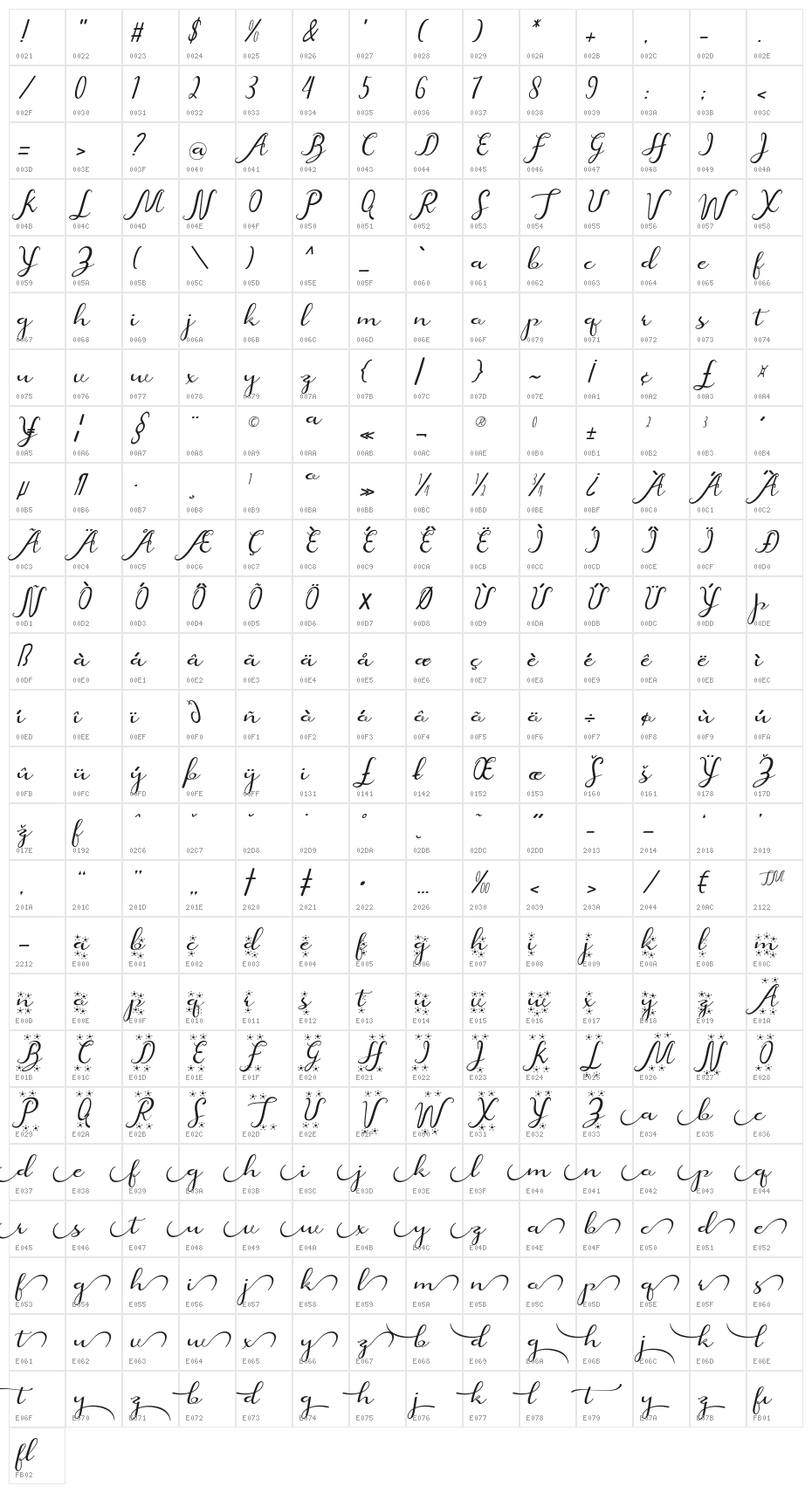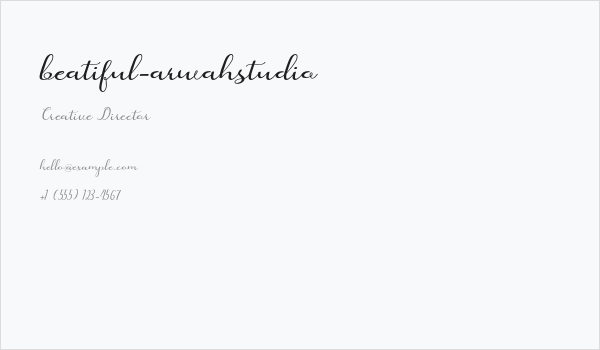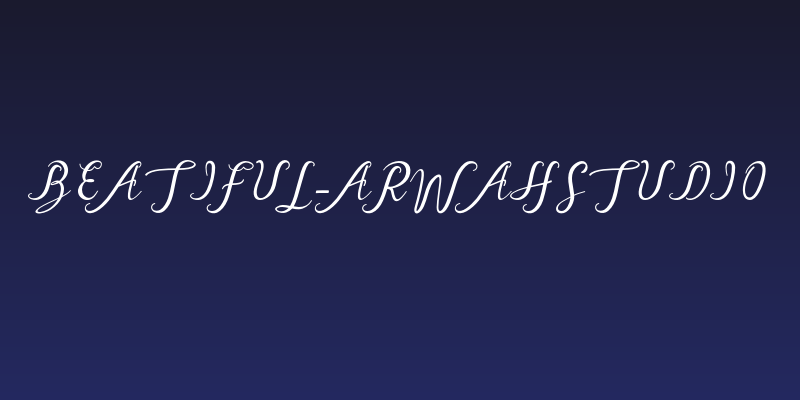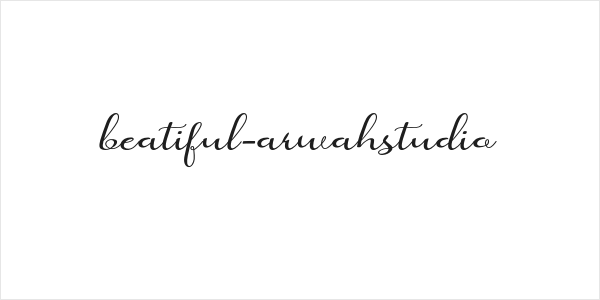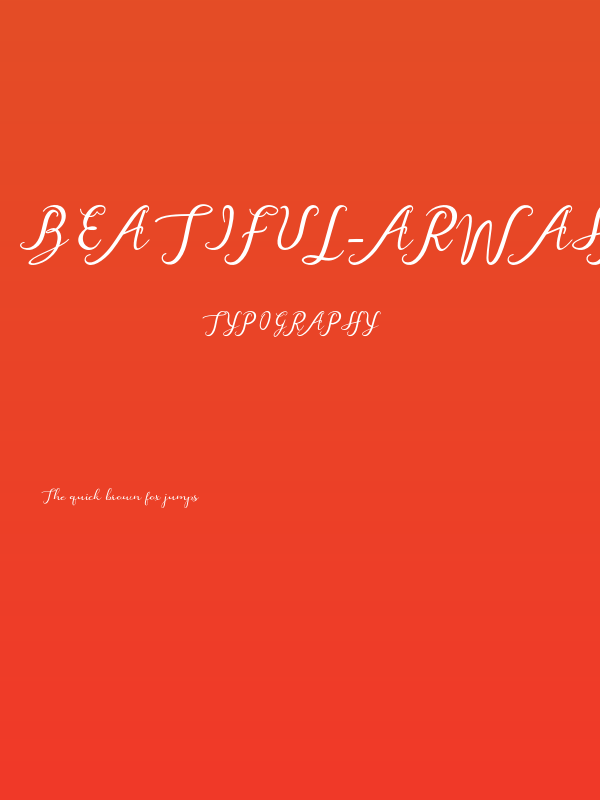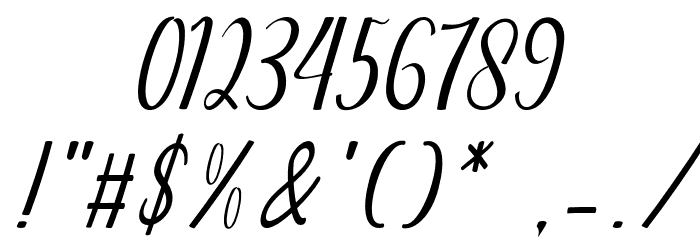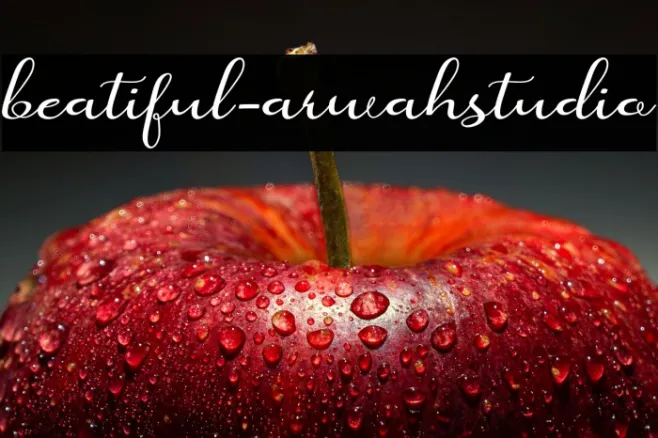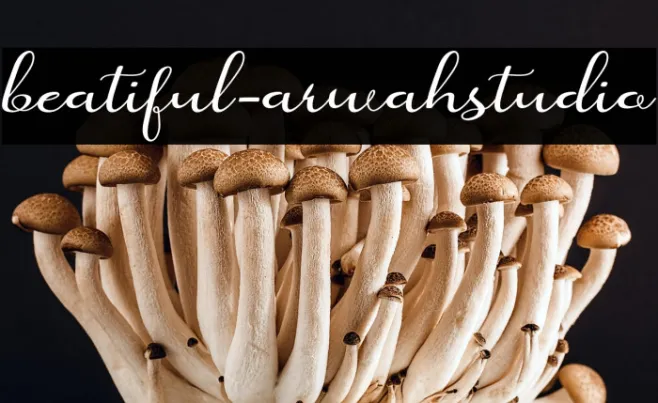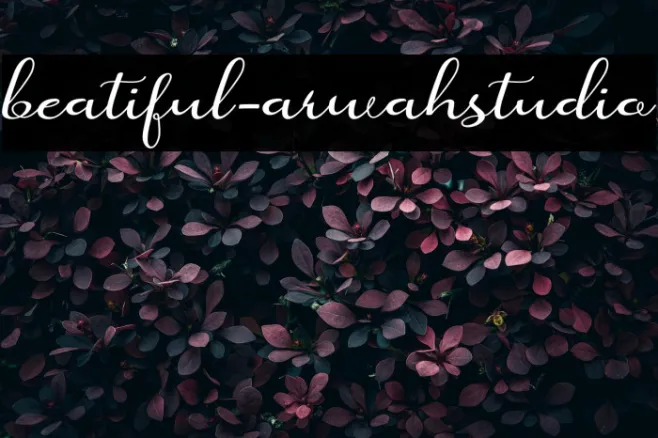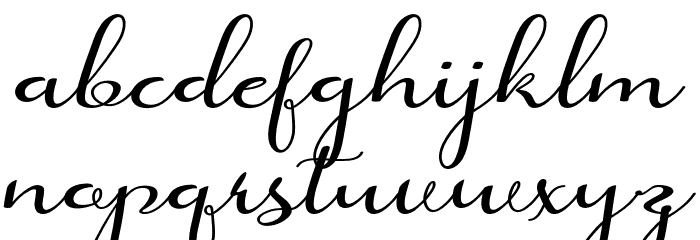
beatiful-arwahstudio Font
beatiful-arwahstudio Description
This font exudes elegance and sophistication with its fluid, cursive style. The characters are gracefully connected, creating a seamless flow that is both artistic and refined. The uppercase letters are slightly more elaborate, with flourishes that add a touch of drama, while the lowercase letters maintain a consistent, smooth rhythm. The numerals are clear and stylish, complementing the overall aesthetic. Special characters are thoughtfully designed, maintaining the font's cohesive look. This script font is perfect for projects that require a personal, handwritten touch, such as invitations, greeting cards, or branding materials.